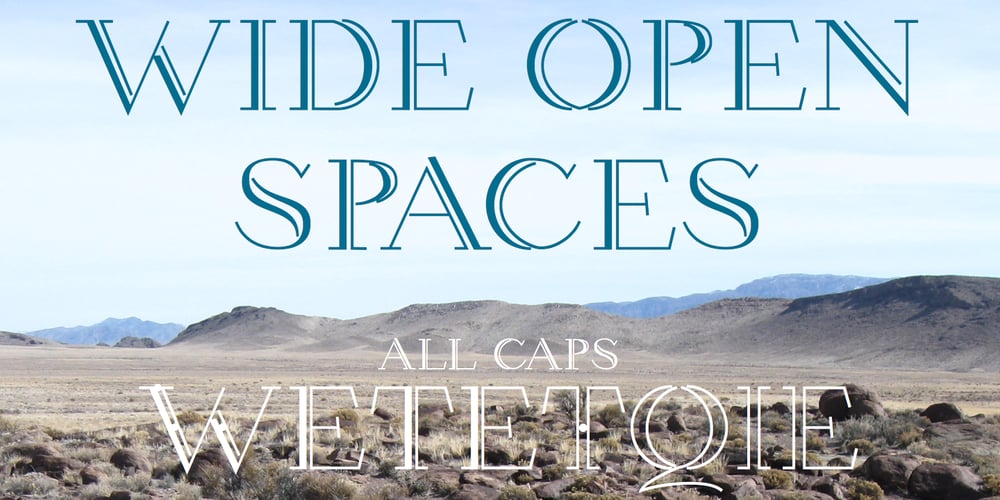
Wetetque
Wetetque font
Wetetque Font Family was designed by Robert Schenk and published by Ingrimayne Type. Wetetque contains 2 styles and family package options. The two Wetetque faces are dual-line fonts made with simple lines. The family has two styles and is caps only, but the lower case in each style is different from the upper case, giving the family has four sets of letters.